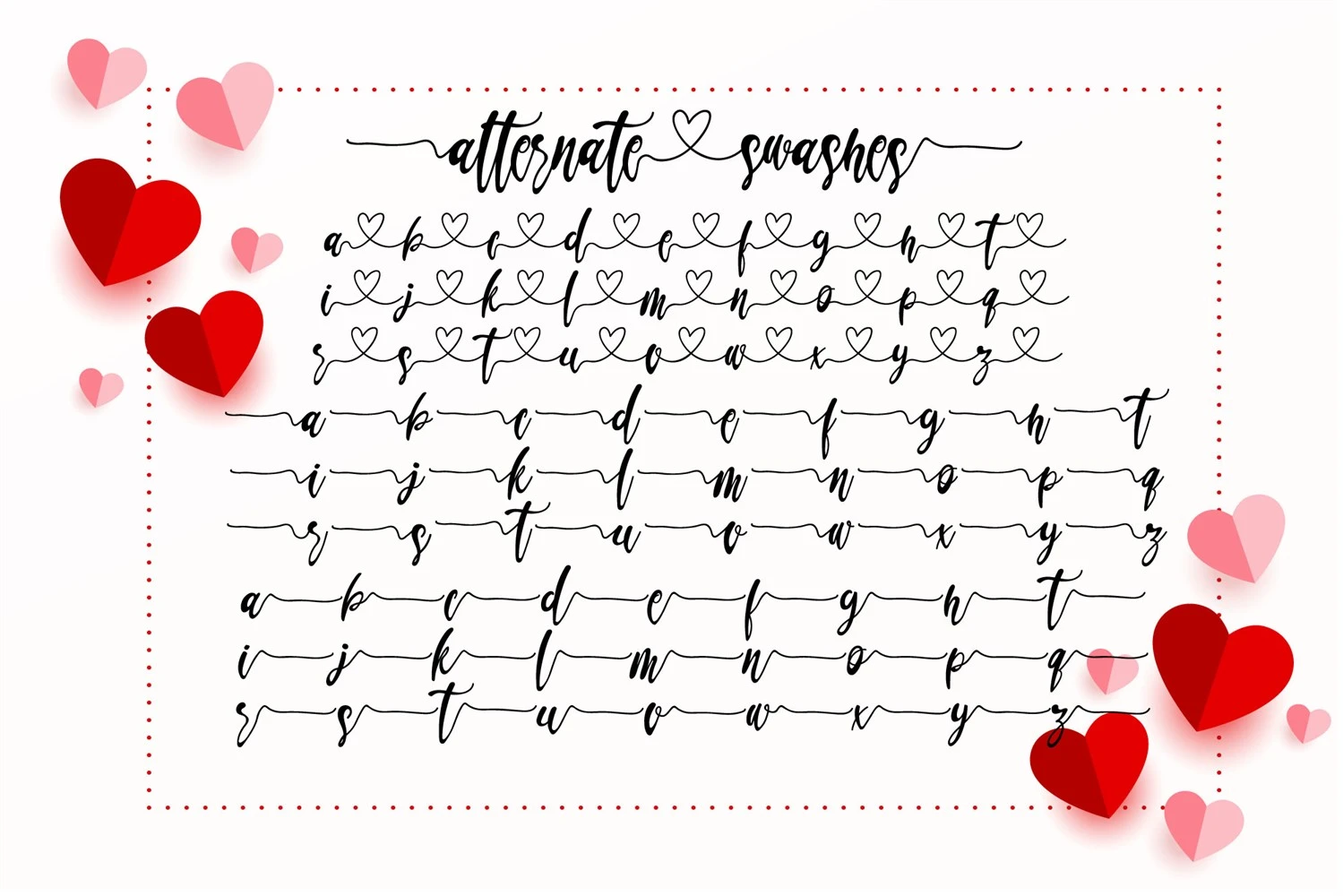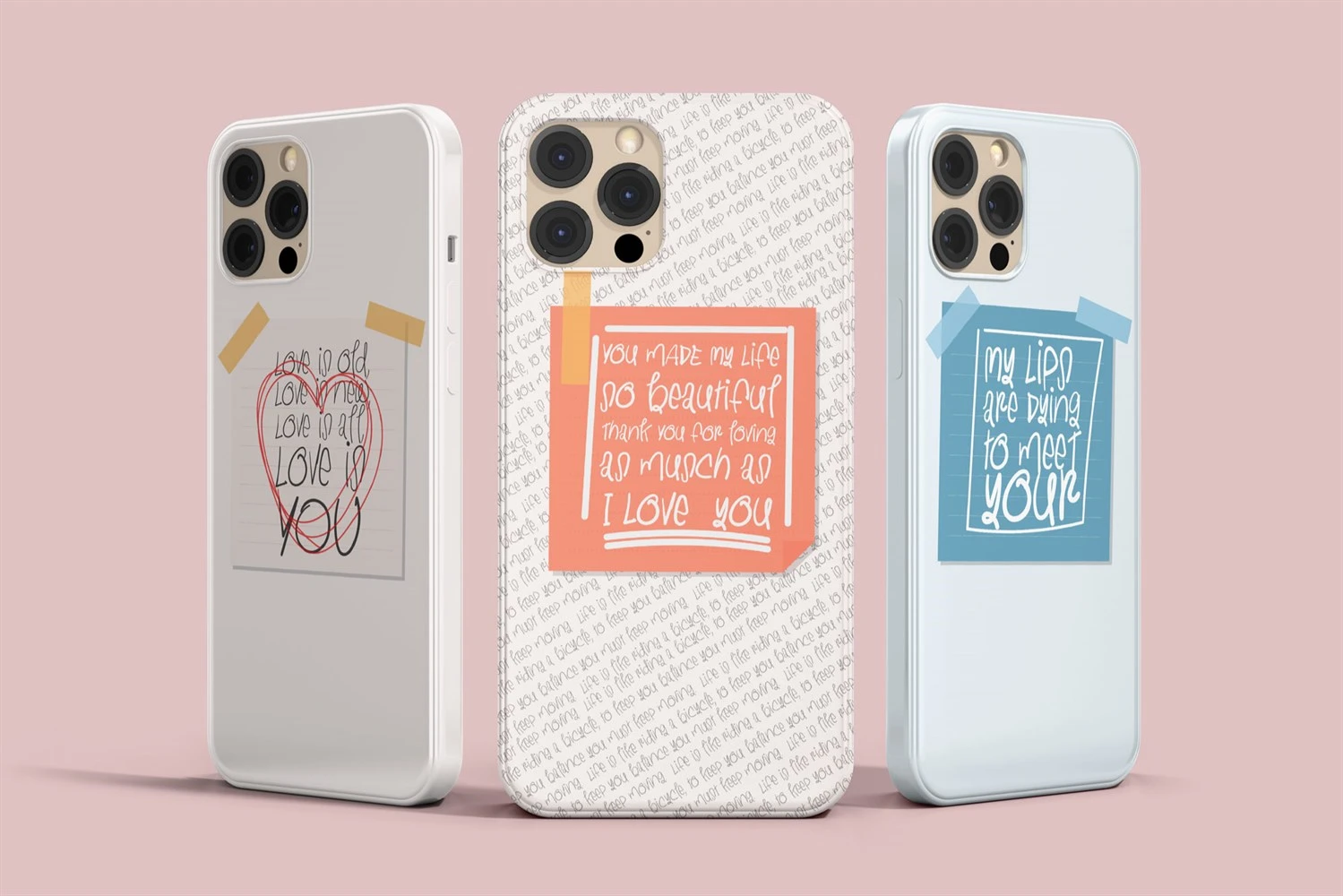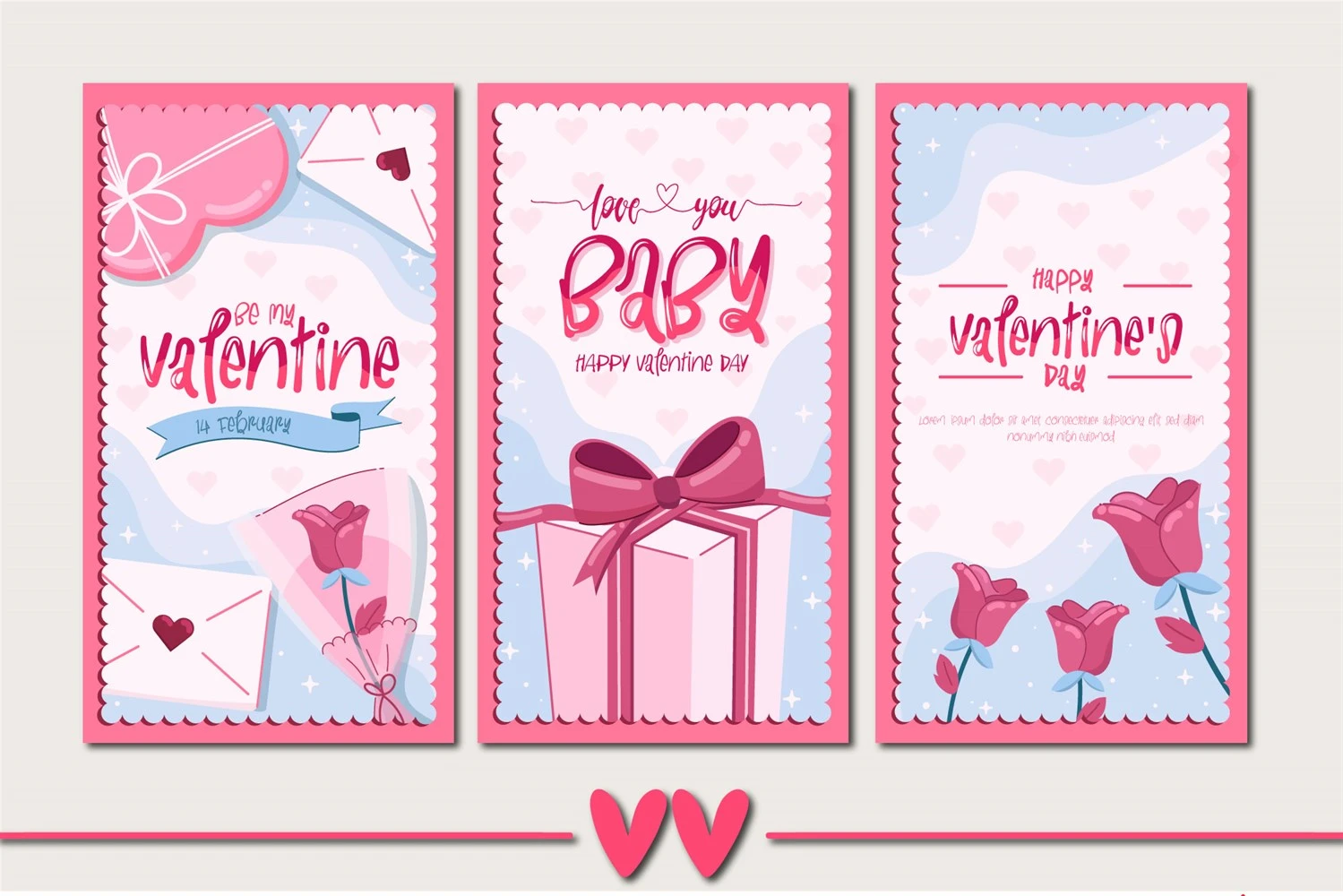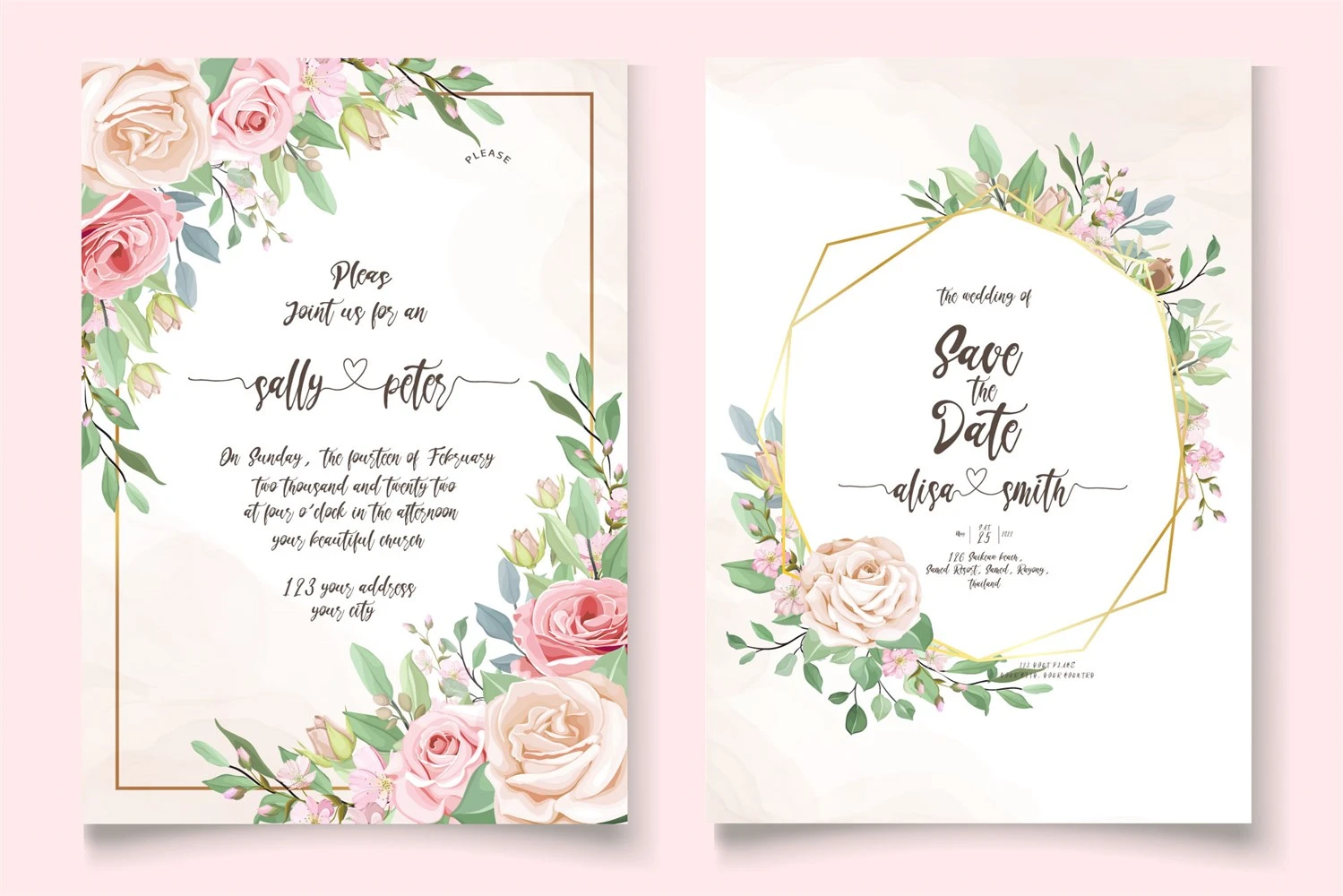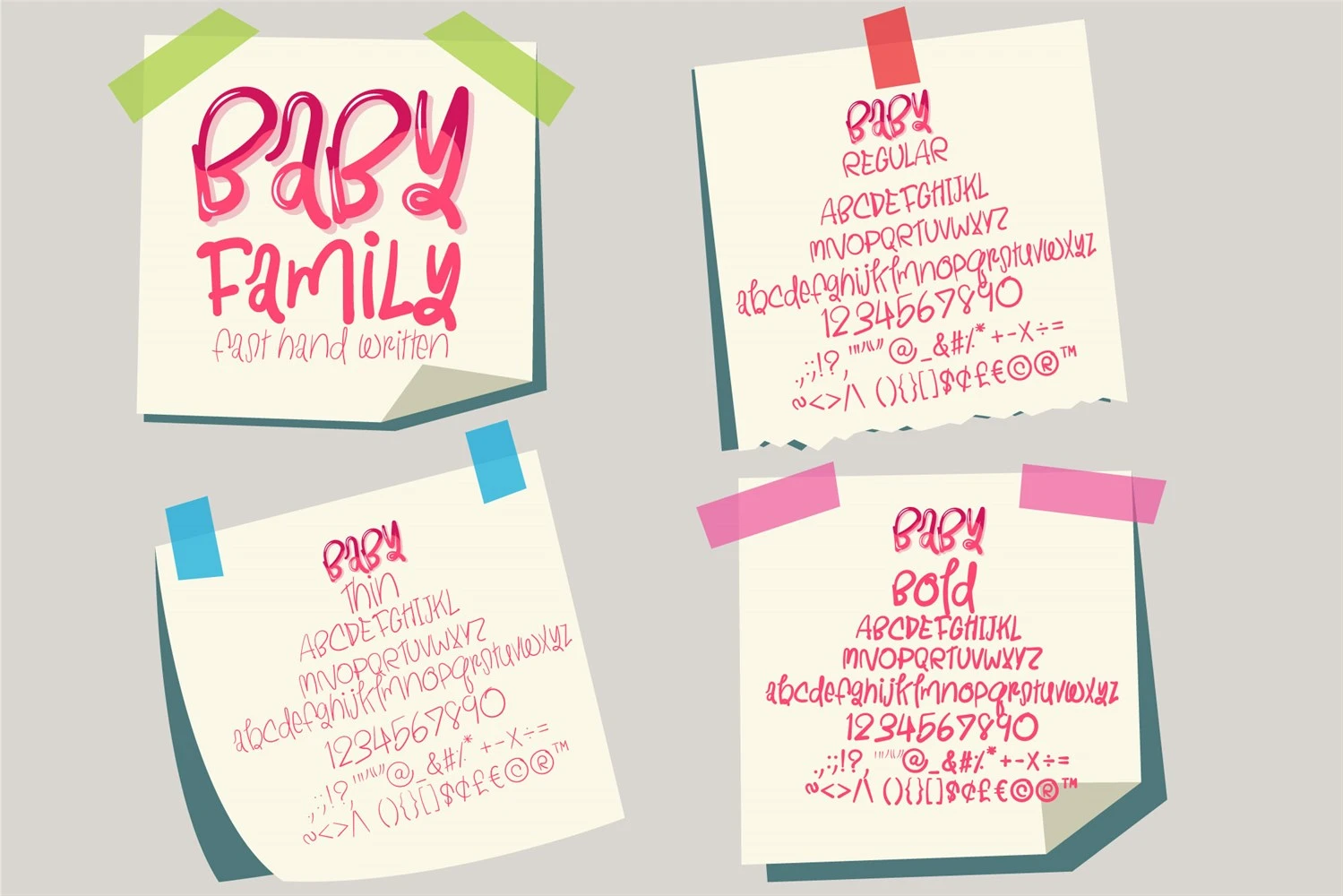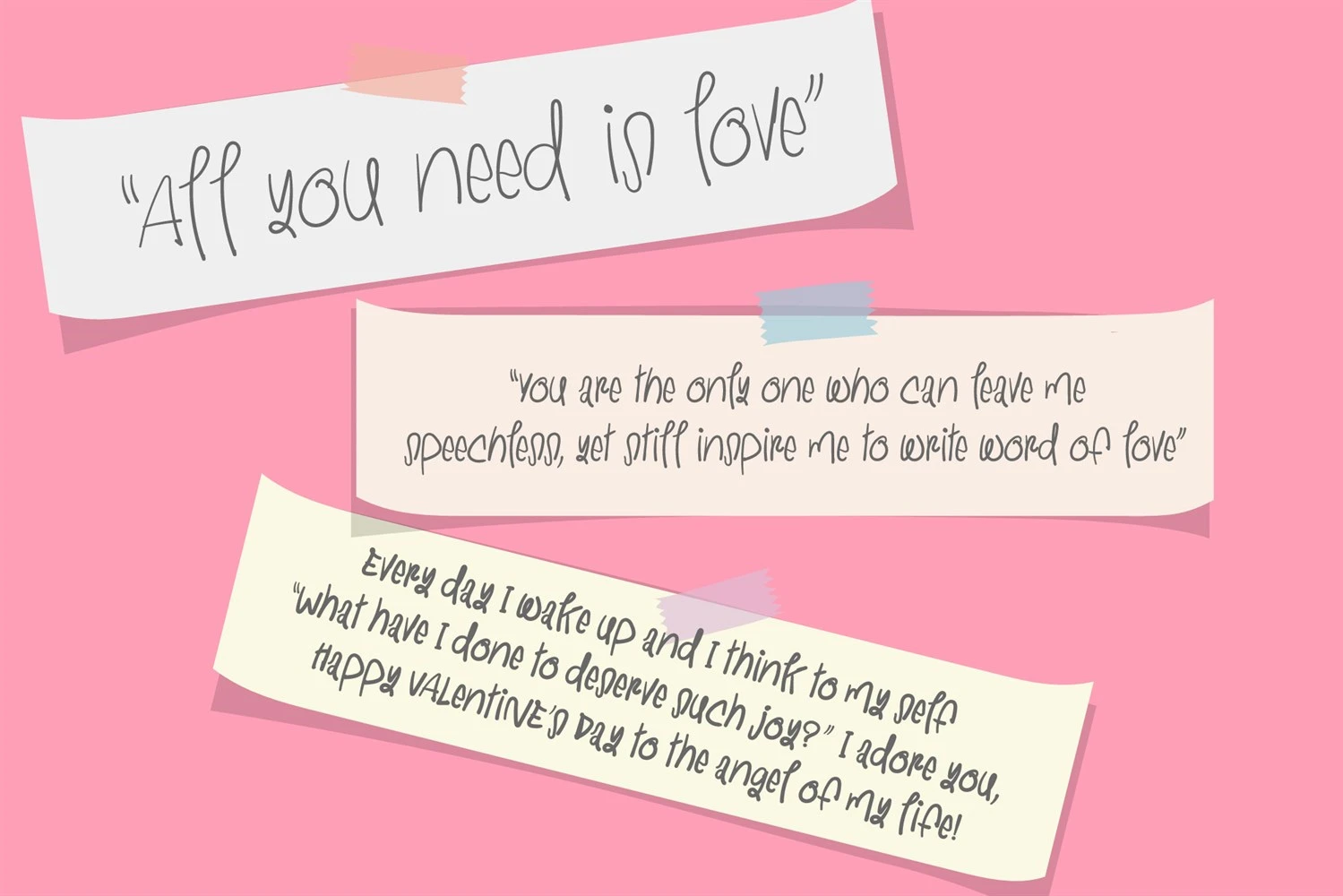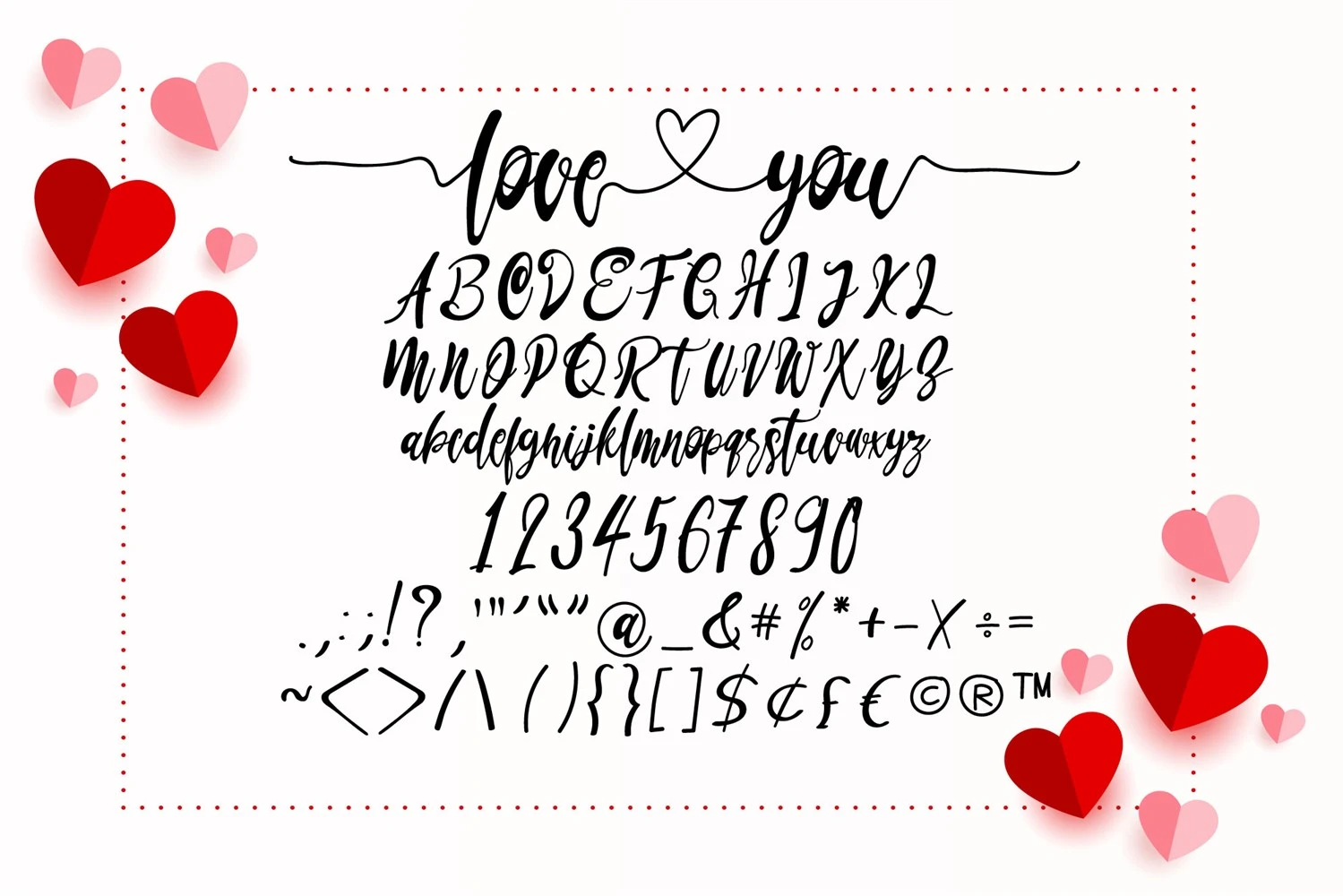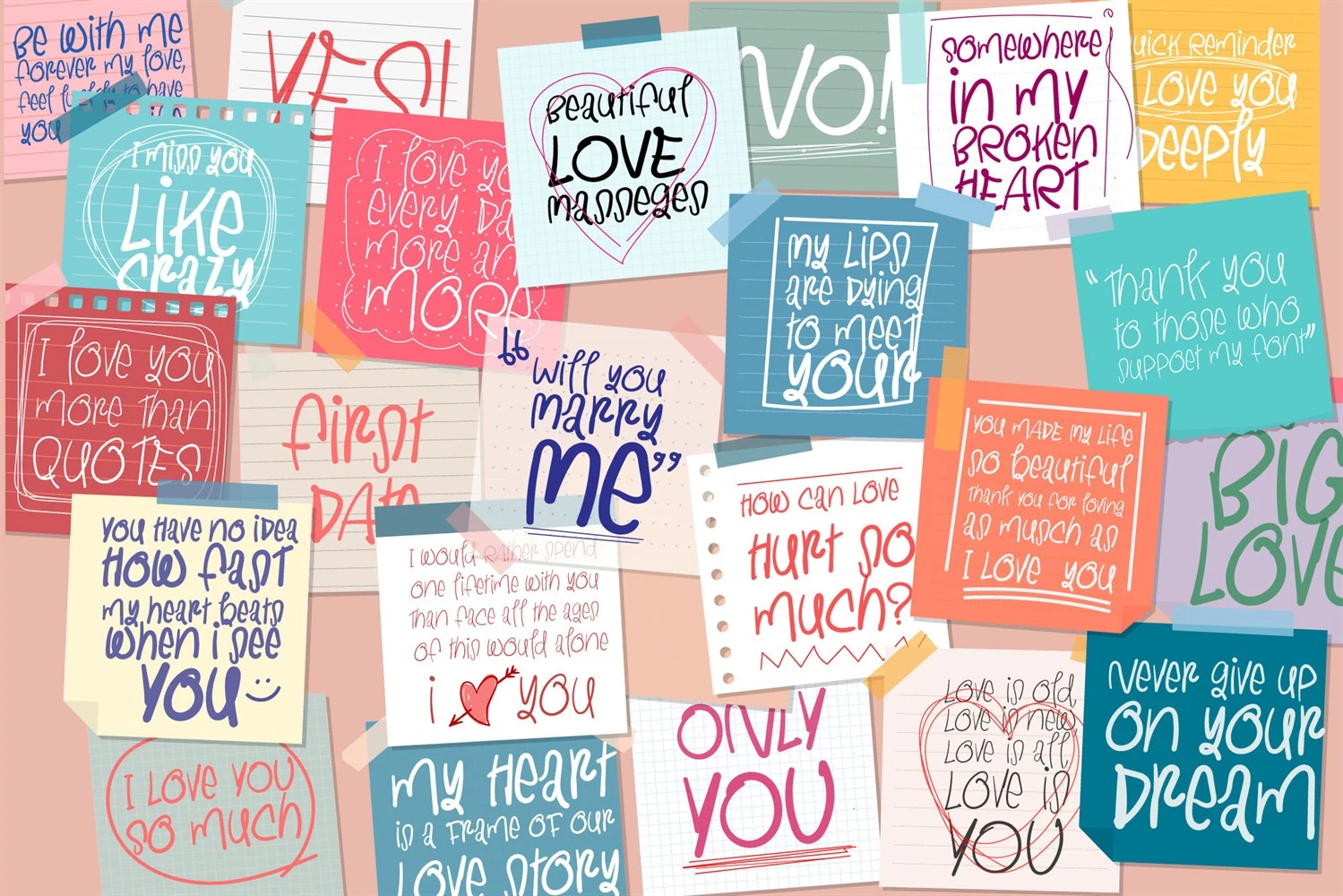
Love You Baby Font is the epitome of adorable handwritten charm! This delightful font is crafted with love and is perfect for adding a touch of sweetness to any design project. Whether you're creating greeting cards, invitations, logos, or social media graphics, Love You Baby Font will make your creations truly standout. Its versatile nature and captivating strokes ensure that your designs exude a warm and lovable vibe. Don't miss out on this enchanting font it's sure to bring smiles and love to your creative endeavors!
Love You Baby Font